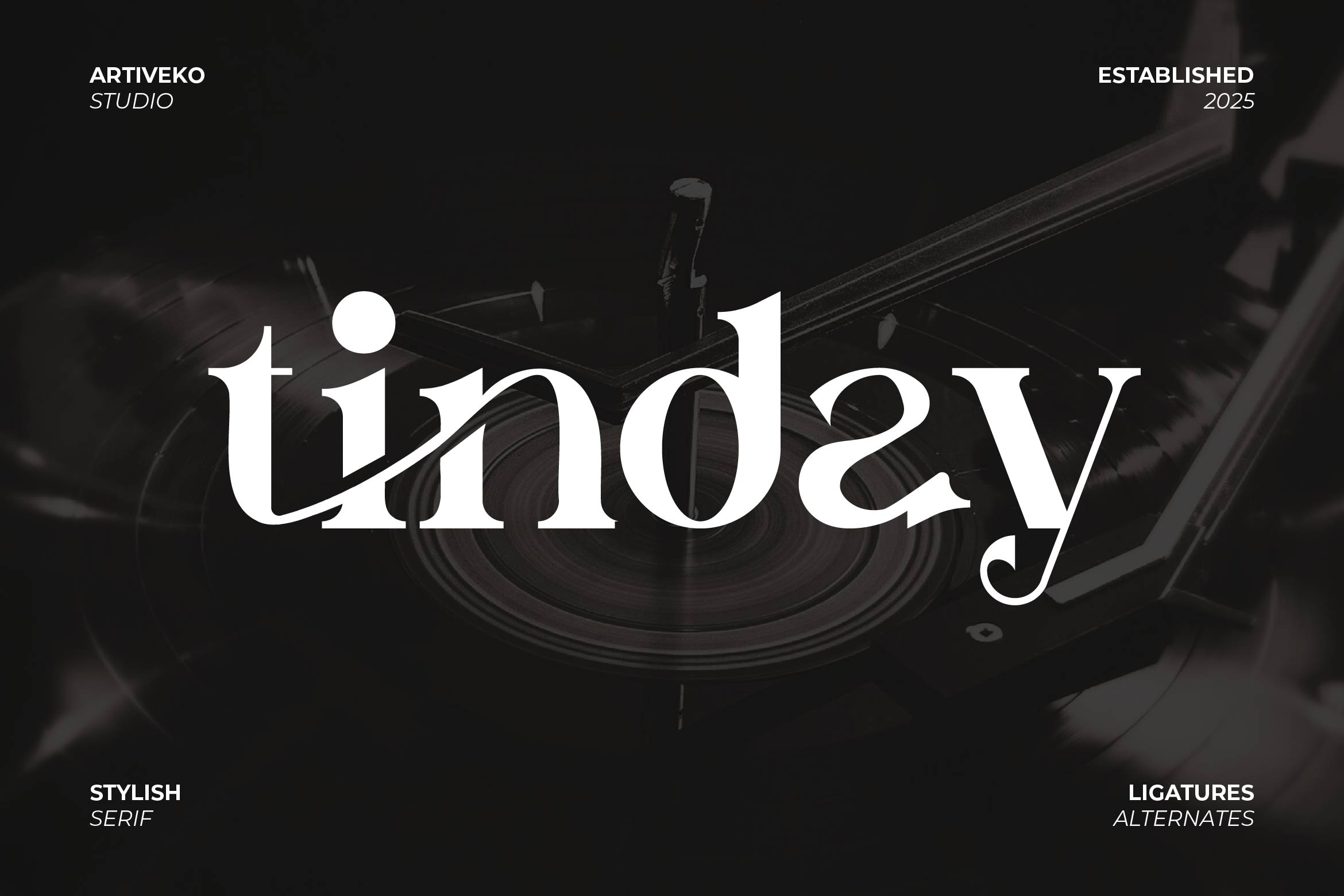
- Tinday Premium Serif Font
Tinday is a refined serif font crafted to exude sophistication, luxury, and high-class aesthetics. With its high-contrast strokes, sharp serifs, and graceful curves, Tinday is the perfect choice for premium branding, fashion editorials, wedding invitations, packaging, and elegant logo designs.
Its timeless structure and meticulous detailing ensure excellent readability while adding a touch of exclusivity to every project. Tinday blends traditional serif beauty with a contemporary twist, making it ideal for upscale designs that need a premium visual statement.
The font includes uppercase and lowercase letters, numerals, punctuation, multilingual support, and a selection of ligatures and stylistic alternates for custom, luxurious typography.
Elevate your designs with Tinday — the luxury serif font that speaks elegance, prestige, and sophistication in every letter.